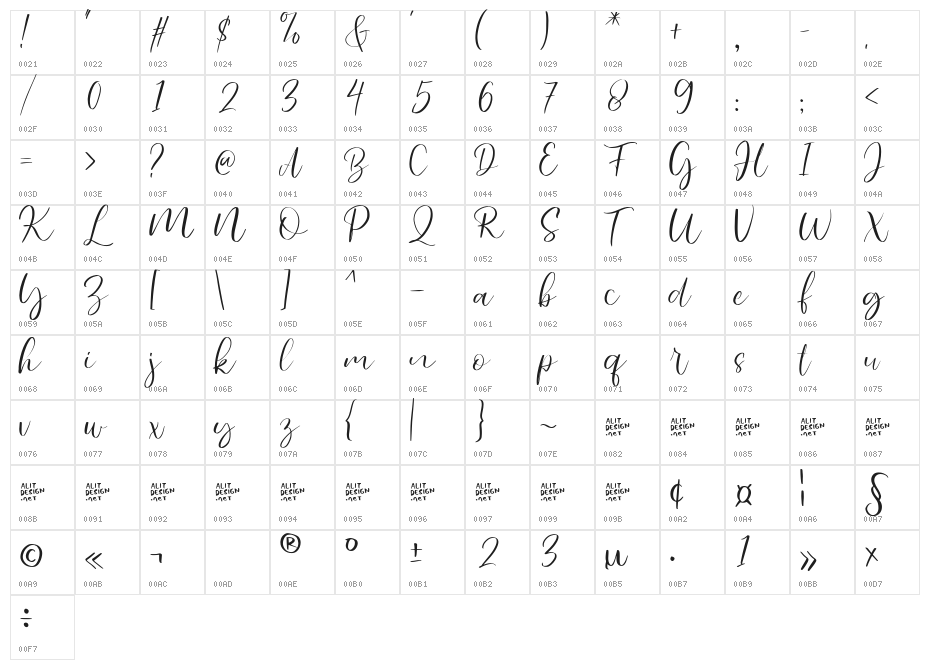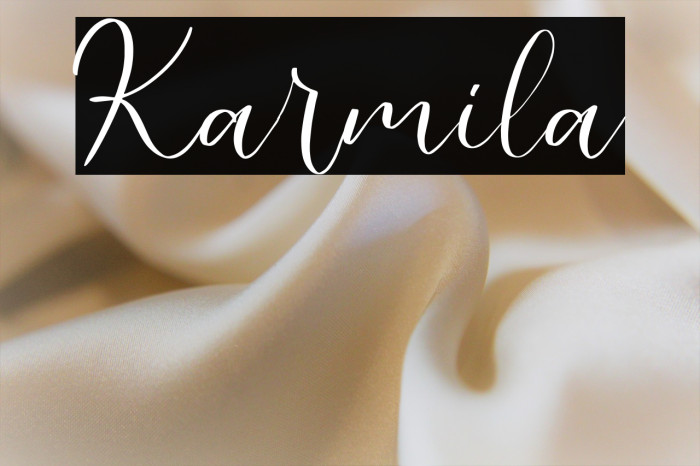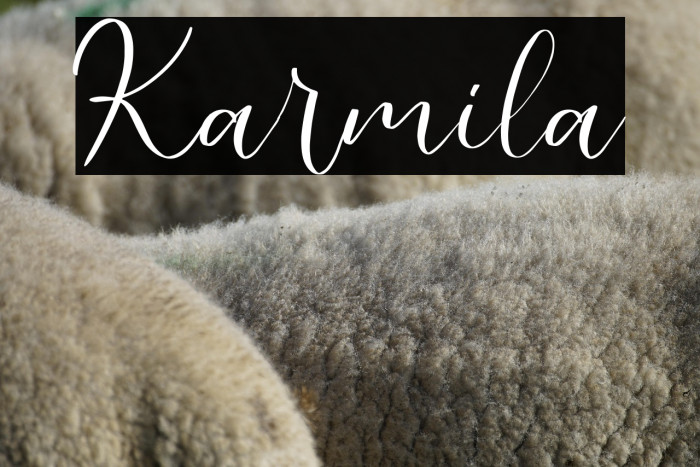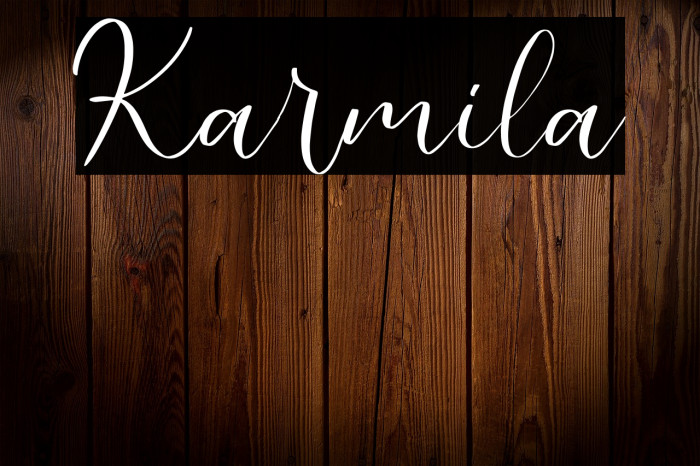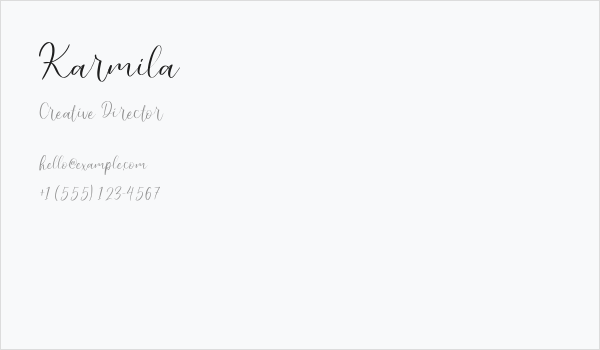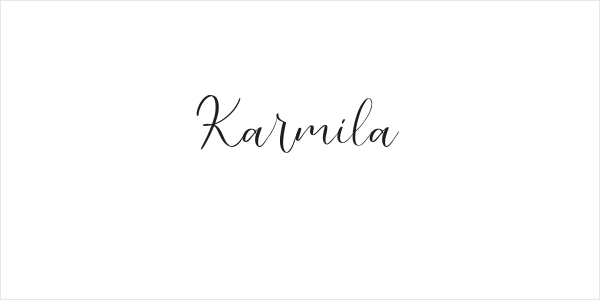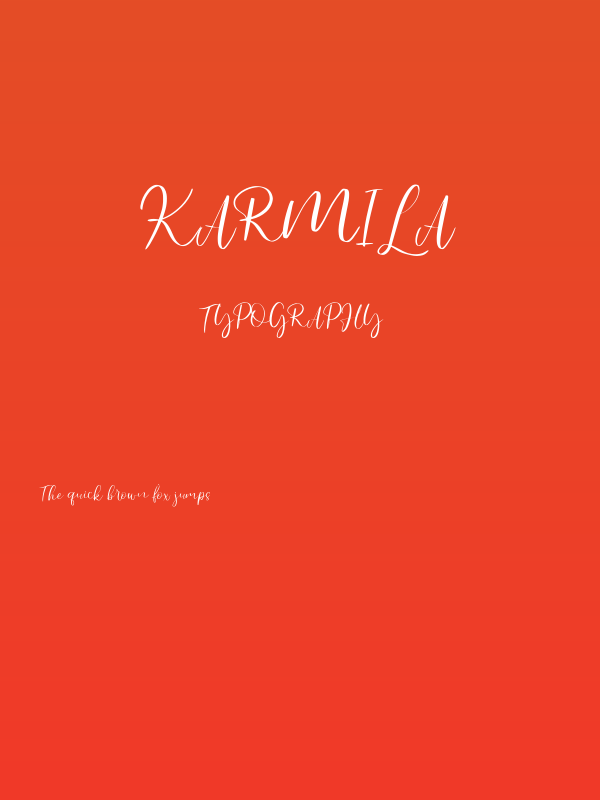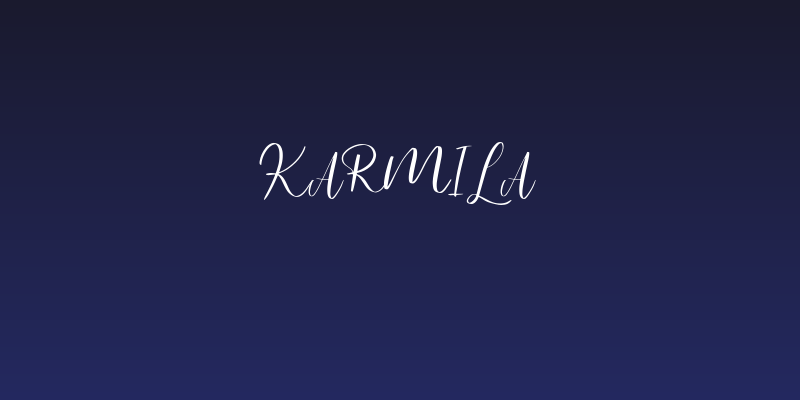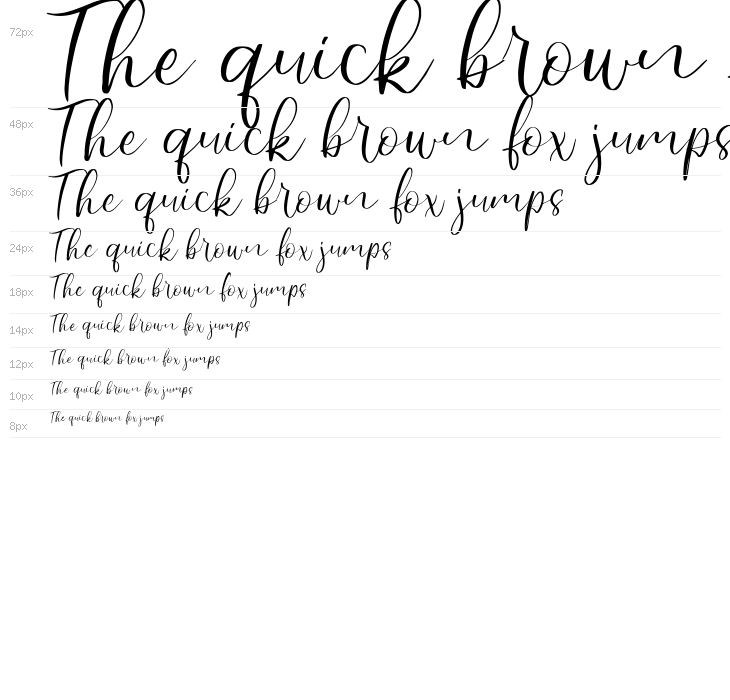
Karmila Font
Karmila Description
This font features an elegant and flowing script style, characterized by its smooth, cursive lines and graceful curves. The letters are interconnected, giving it a handwritten appearance that is both sophisticated and approachable. The uppercase letters are slightly more embellished, with flourishes that add a touch of flair, while the lowercase letters maintain a consistent rhythm and flow. The numerals and special characters are designed to match the overall aesthetic, ensuring a cohesive look across all text elements. This font is perfect for projects that require a personal touch, such as invitations, greeting cards, or branding materials.
| Overall Style | Elegant, Handwritten |
| Use Case | Logos, Invitations, Greeting cards |
| Proposed Projects | Ideal for wedding invitations, personal branding, greeting cards, and elegant packaging. |